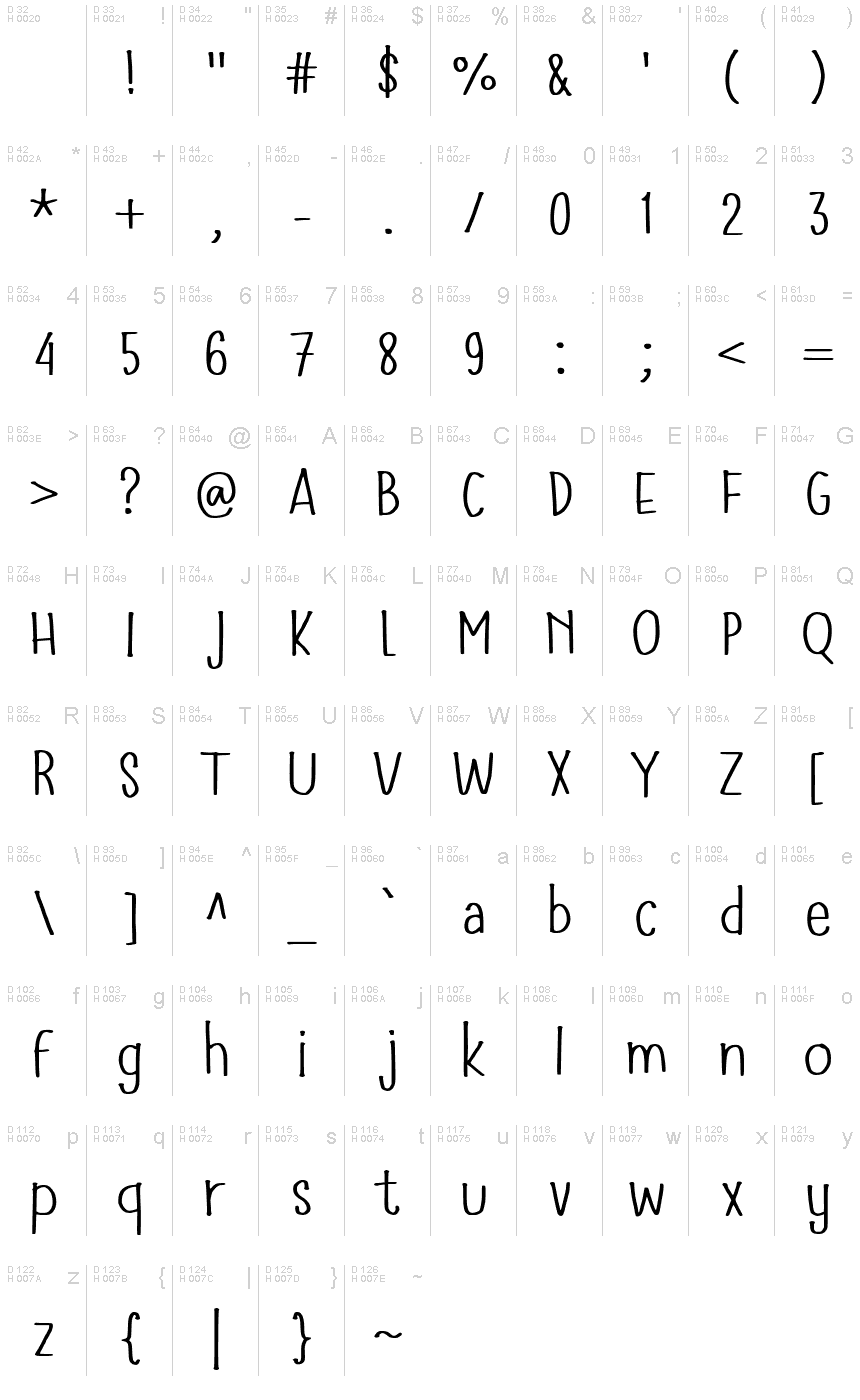
Aprilia Regular
Aprilia is a beautiful handwritten font designed by Sidkia. With its light weight and condensed width, it gives a unique and elegant touch to any project. Aprilia is perfect for creative projects such as logos, wedding invitations, posters or labels. It also makes headlines look stylish and eye-catching. Give your designs an extra special something with Aprilia!